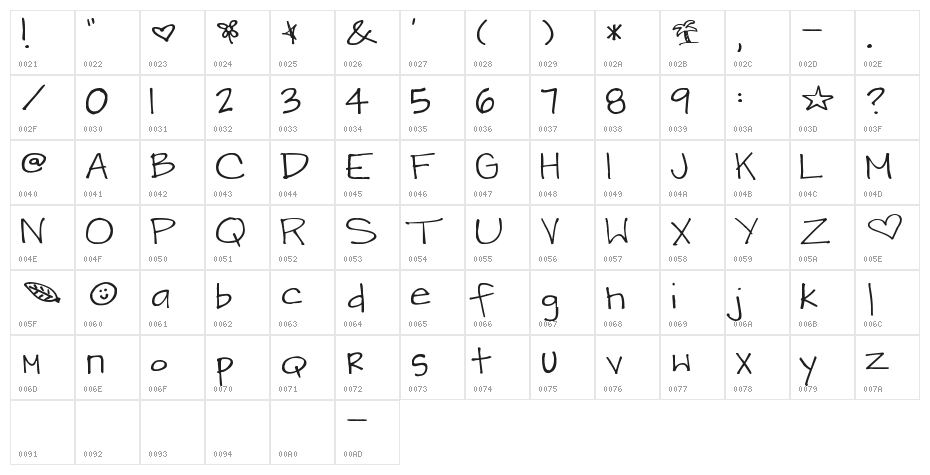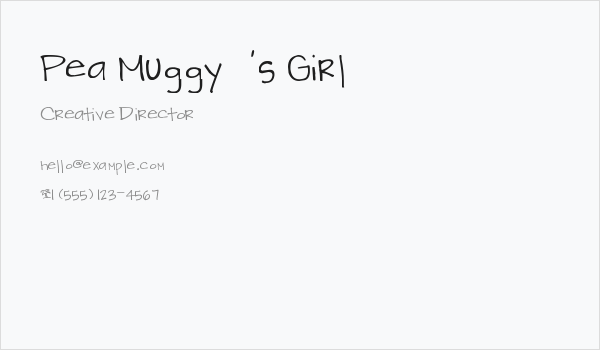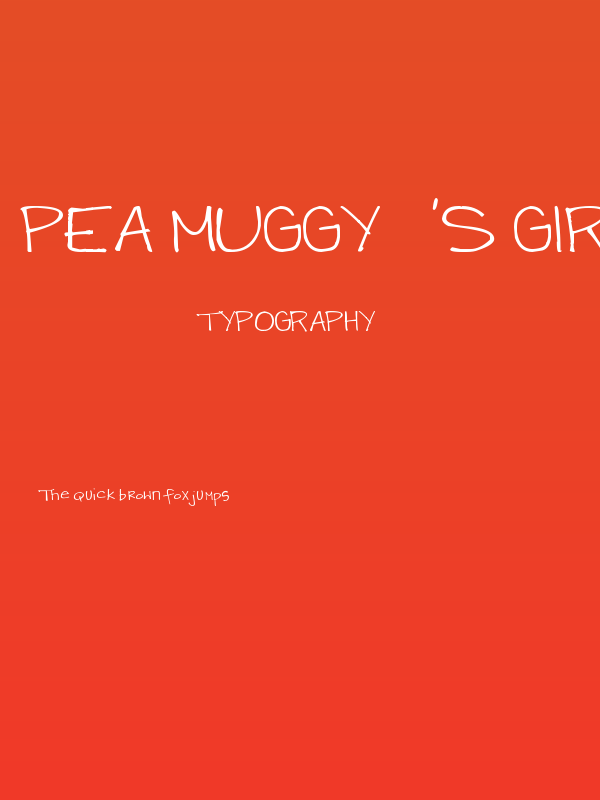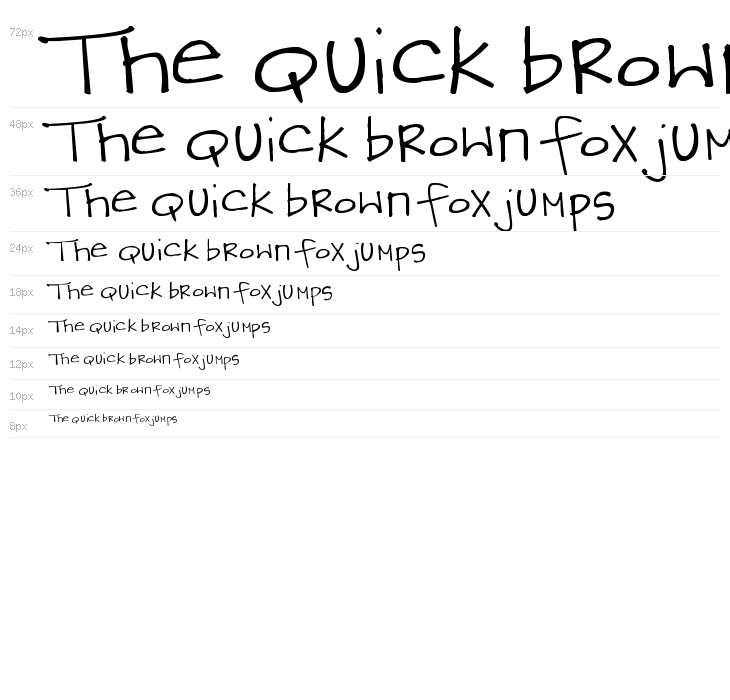
Pea Muggy's Girl Font
Pea Muggy's Girl Description
This playful and whimsical font features a handwritten style with a casual and informal appearance. The characters are slightly irregular, adding a personal touch that mimics natural handwriting. The strokes are uneven, with varying thickness that gives it a lively and dynamic feel. The uppercase letters are bold and prominent, while the lowercase letters maintain a consistent flow. Numbers and special characters are crafted with the same playful essence, making them suitable for creative projects. The overall design is approachable and friendly, making it ideal for projects that require a personal and engaging touch.
| Proposed Projects | Ideal for greeting cards, children's books, casual invitations, and personal blogs. |